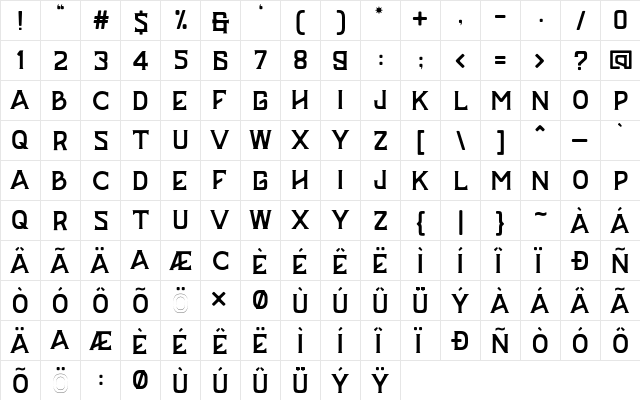
BAZERD Regular
Design Context for BAZERD Typeface
BAZERD is a composed and adaptable typeface that performs quietly and consistently across a wide range of design contexts.
Pro Tip: Use BAZERD in both headline and body roles to test its range before committing to a single application.